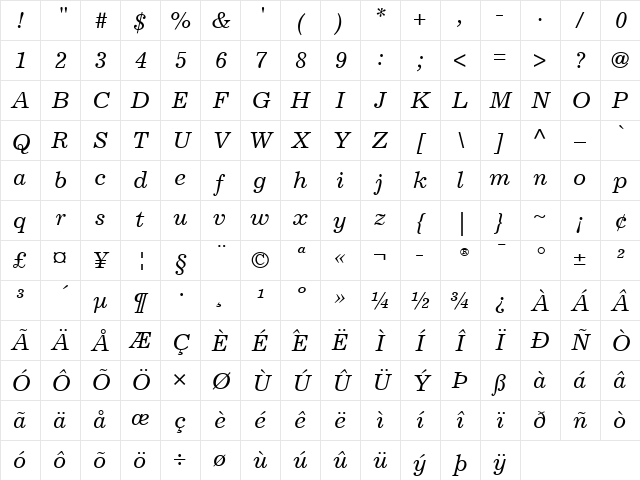
Complete Excelsior Italic glyph index. Displaying only characters natively supported by Excelsior Italic font.
Excelsior is a composed and adaptable typeface that performs quietly and consistently across a wide range of design contexts. The slanted form adds forward momentum and visual energy.
Pro Tip: Use Excelsior for emphasis, pull quotes, and subheadings where its slanted energy can add rhythm to the layout.